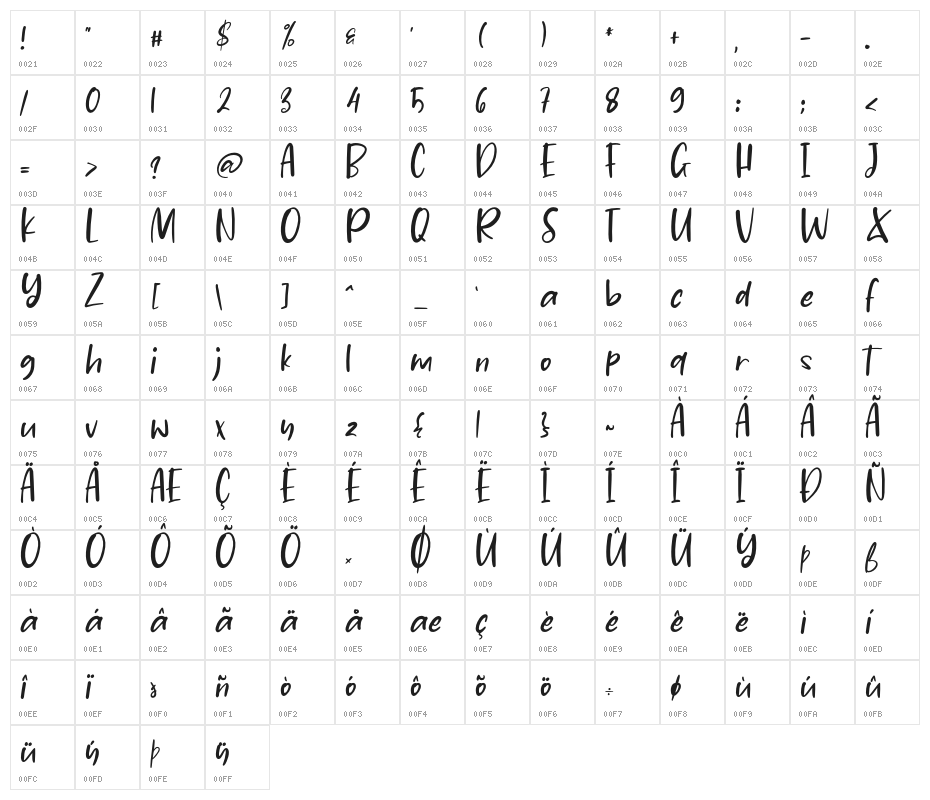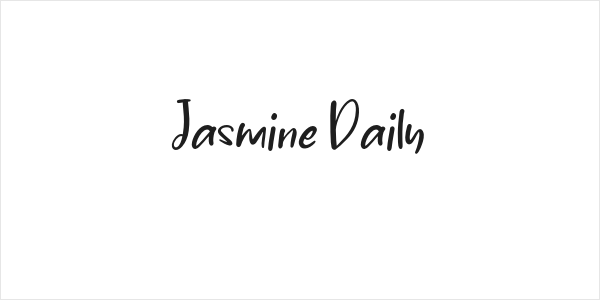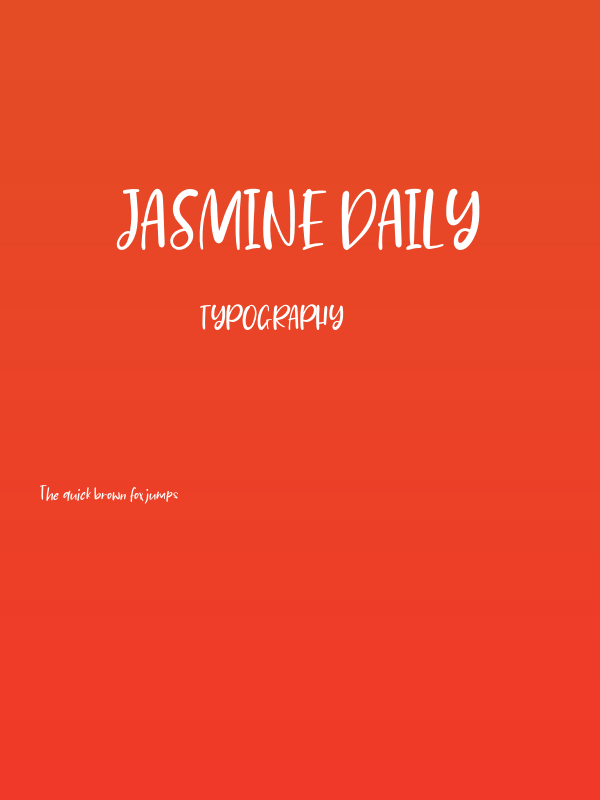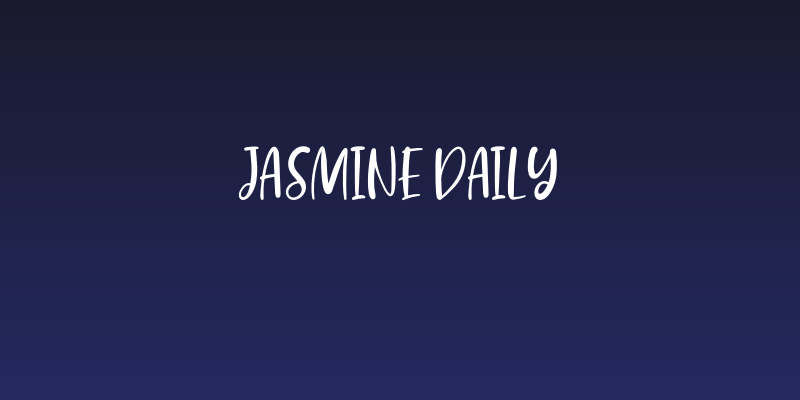
Jasmine Daily Font
Jasmine Daily Description
This font features a lively and energetic handwritten style, characterized by its fluid and dynamic strokes. The uppercase letters are bold and slightly elongated, giving a sense of movement and flair. The lowercase letters maintain a consistent flow, with some characters featuring playful loops and curves. Numbers and special characters are crafted with the same attention to detail, ensuring a cohesive look across all elements. The overall appearance is both casual and stylish, making it suitable for a variety of creative applications.
| Use Case | Logos, Headlines, Social Media Graphics |
| Proposed Projects | Ideal for greeting cards, invitations, branding projects, and social media graphics. |